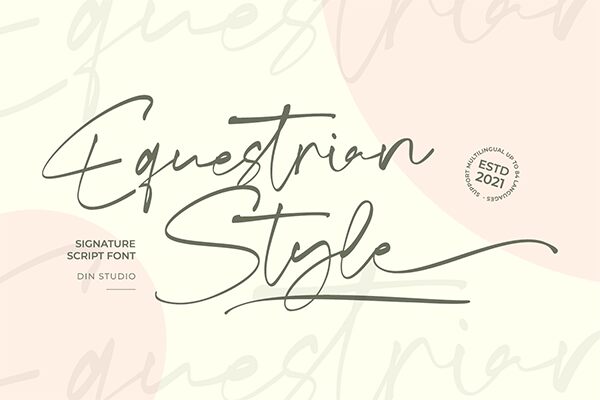
Equestrian Style font is a lovely signature typeface designed by Din Studio.
Equestrian Style is a handcrafted font designed to bring your branding to life and add a touch of elegance,modernity, and style. Every swash, stroke, and curve was created to entice happiness and elegance. The best choice for your logo, book cover, poster, t-shirt, branding, and advertisement needs.